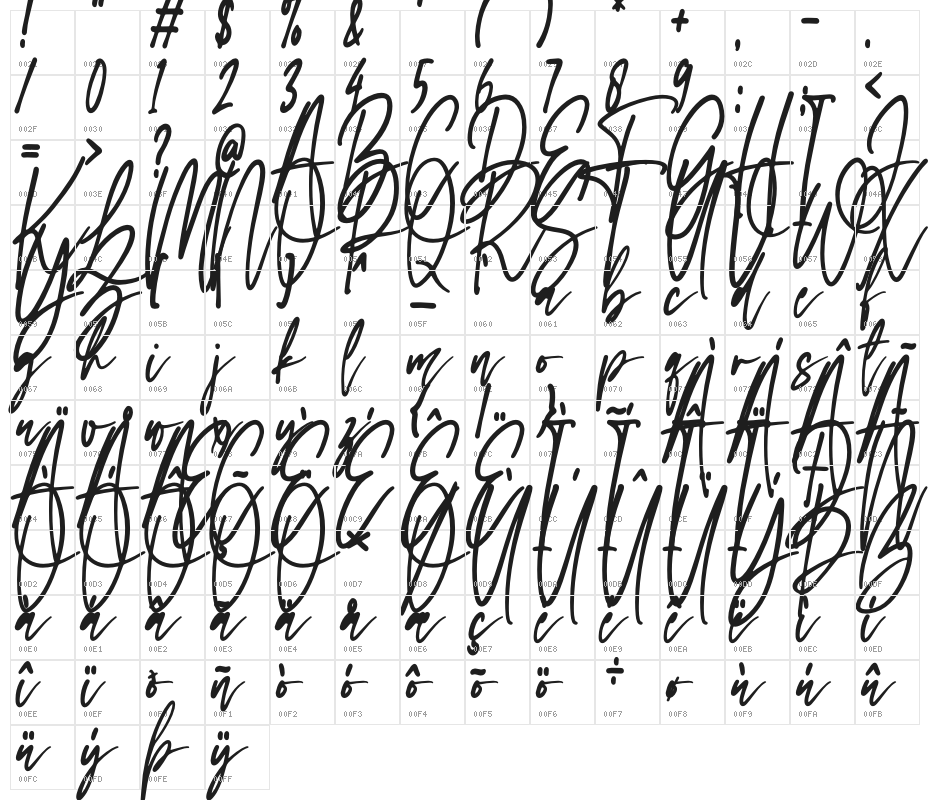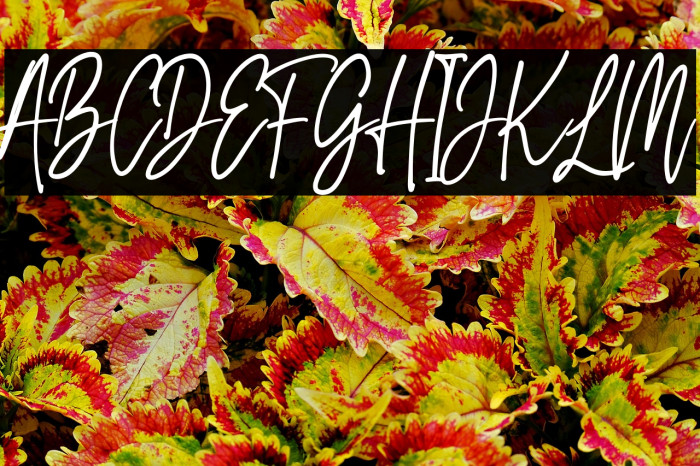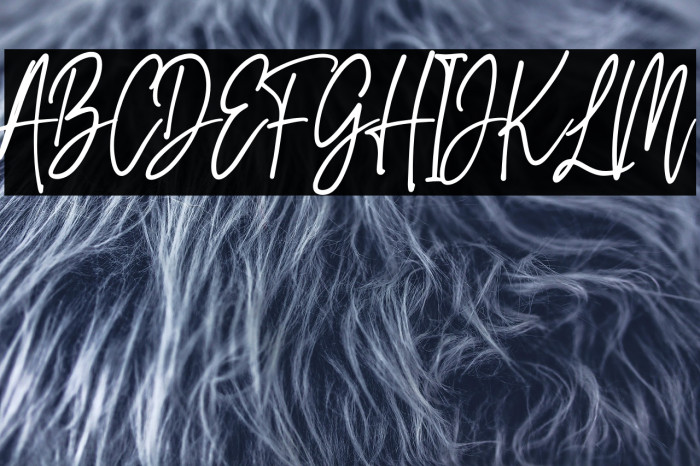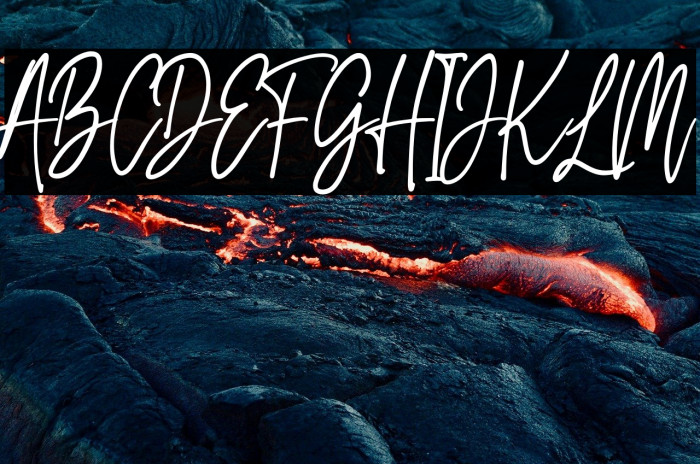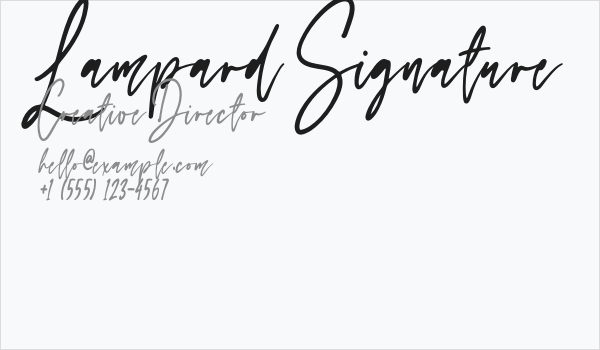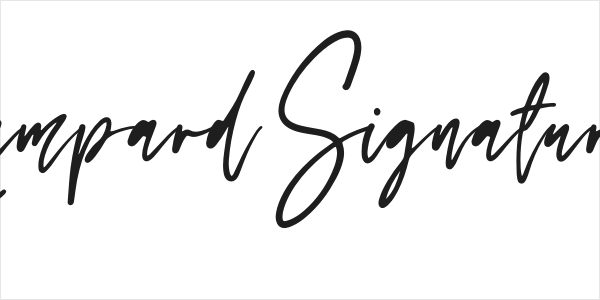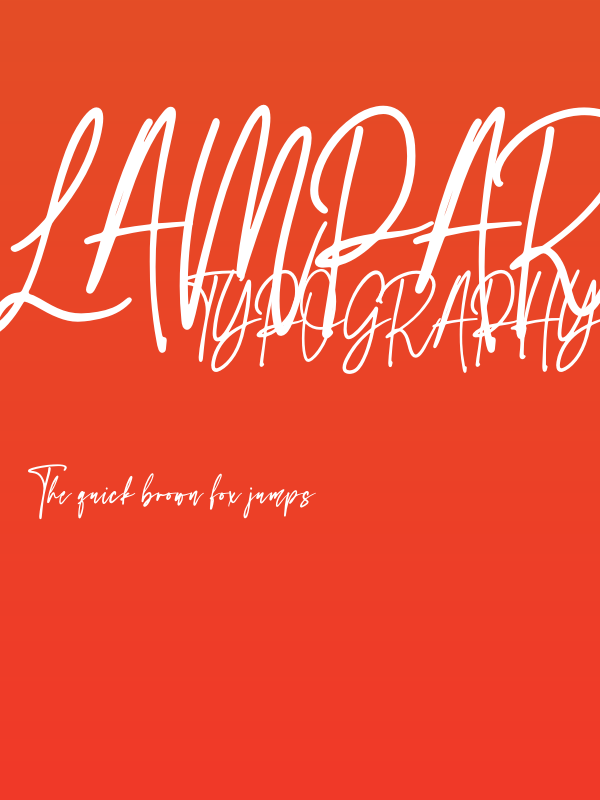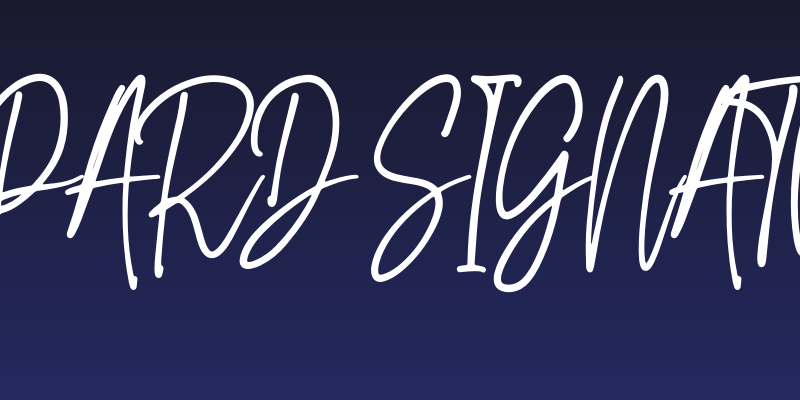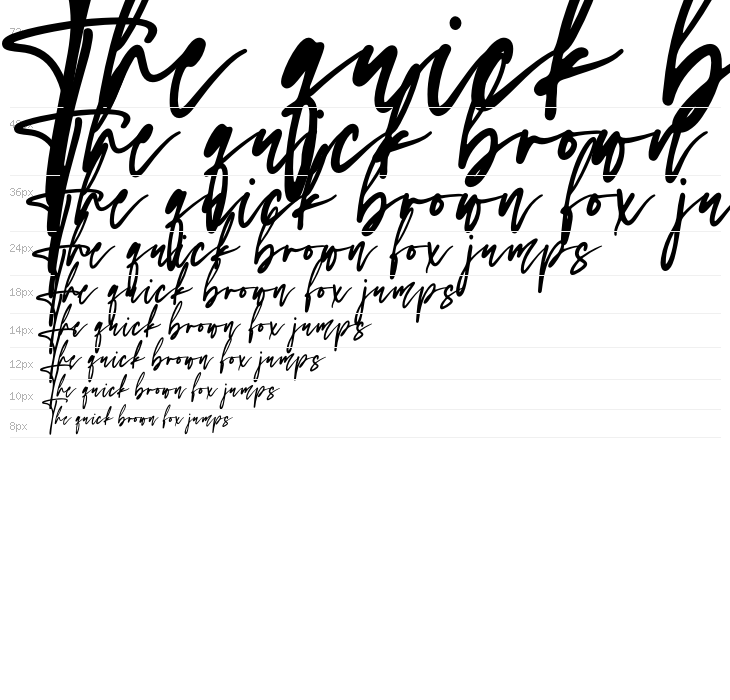
Lampard Signature Font
Lampard Signature Description
A flowing, cursive script font with a handwritten style, featuring smooth, connected letters and a casual, elegant appearance.
| Use Case | Logos, Signatures, Invitations |
| Proposed Projects | Invitations, personal branding, greeting cards. |